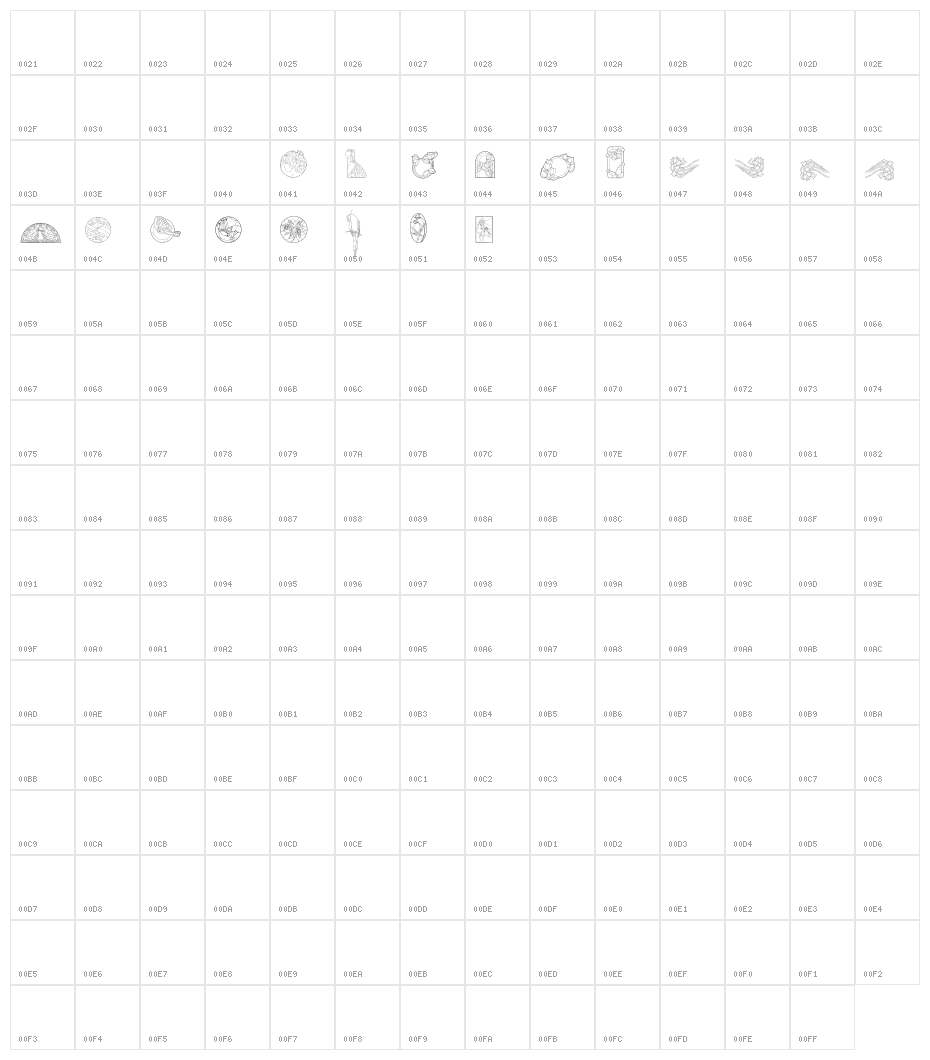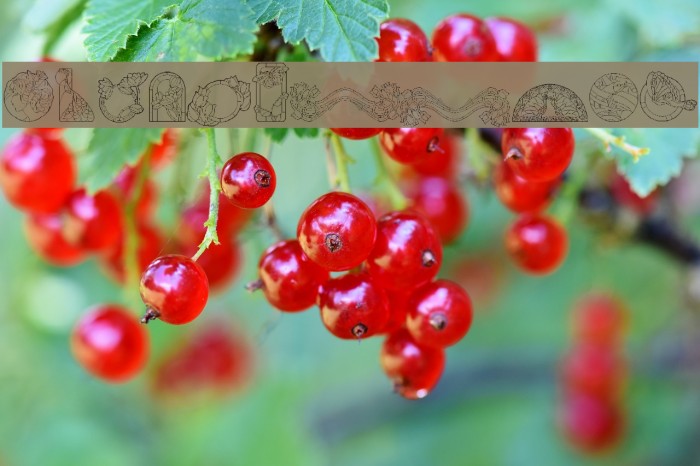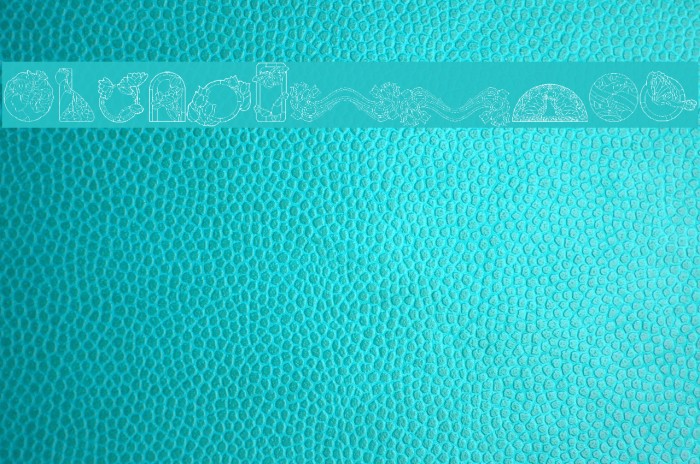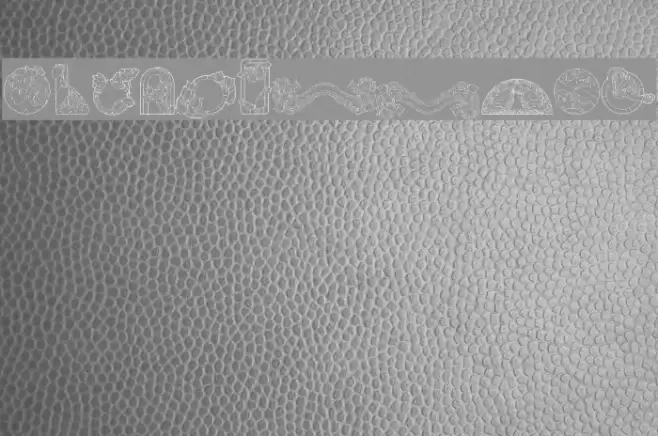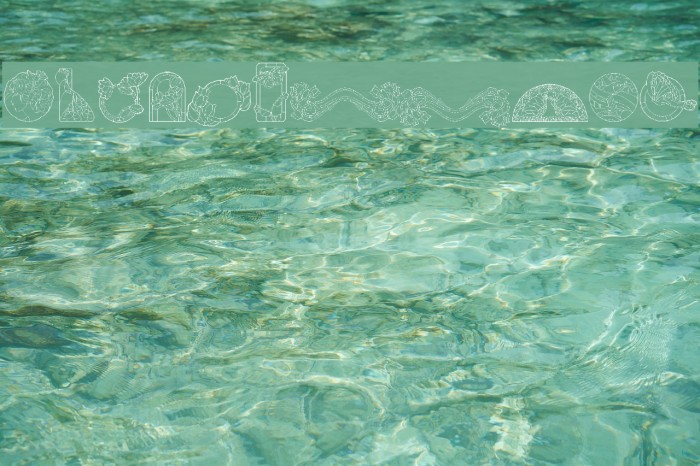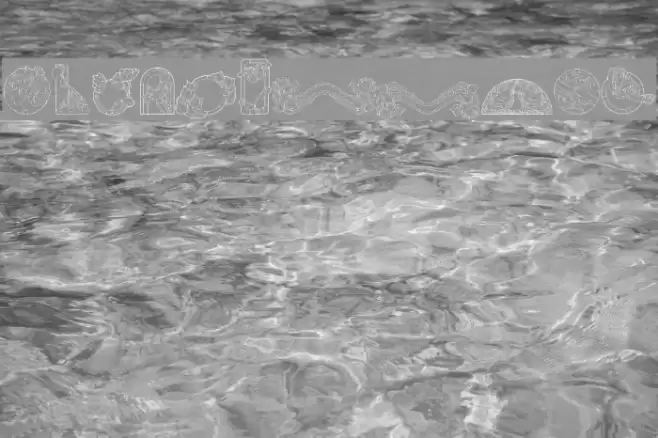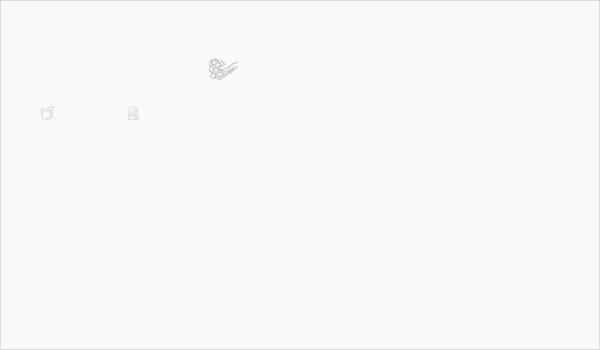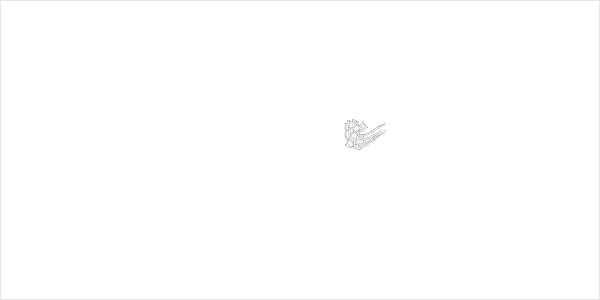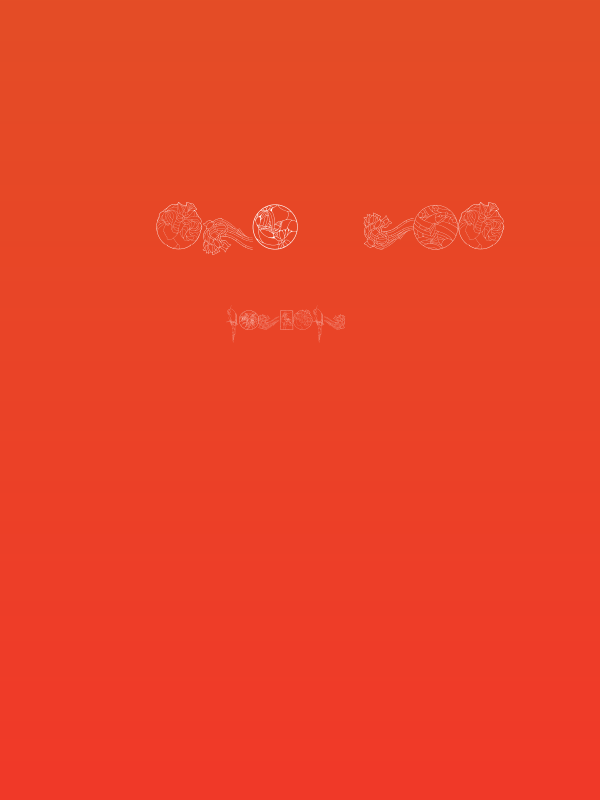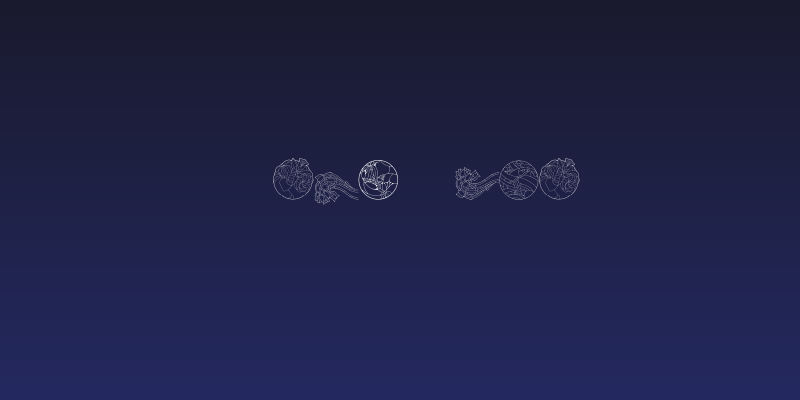
St'aint Glass Font
St'aint Glass Description
This decorative font is inspired by the intricate designs of stained glass art. Each character is filled with detailed patterns that mimic the look of colorful glass pieces joined by lead strips. The font features a variety of floral and geometric motifs, creating a rich tapestry of visual interest. The characters are enclosed within circular or rectangular frames, enhancing the stained glass window effect. This font is highly ornamental, making it ideal for projects that require a touch of elegance and artistry. Its unique style captures the essence of traditional craftsmanship, offering a blend of historical and artistic appeal.
| Proposed Projects | Ideal for wedding invitations, artistic posters, decorative book covers, and any project seeking a vintage or artistic flair. |